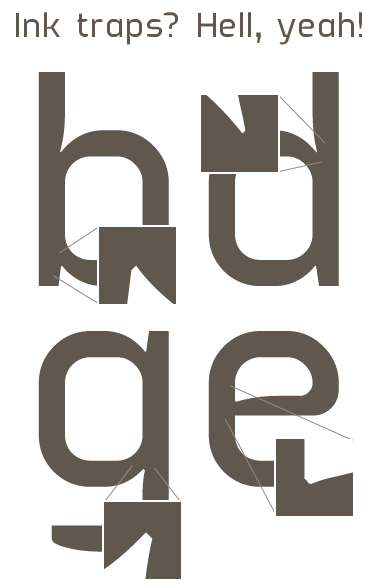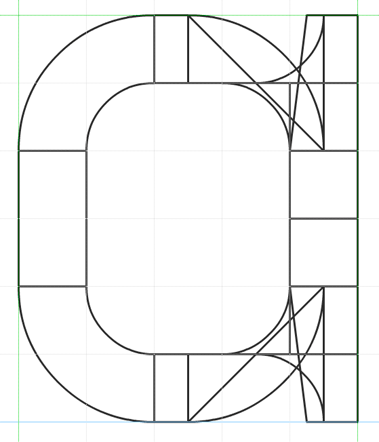
Usual Type
laynecom
Work in Progress The s: (c) ETHproductions
Sans Serif
The subtle details improve this already fantastic font. 10/10 + fav as always
Excellent work, as usual! Those inktraps are very clever. I especially love the ones in M and W.
About that 's': Here's an alternate for your consideration. It uses 1:3 curves to achieve a 5/6 spine thickness.
Amazing mastery of letters and fontstruct skills. 10/10
What a big work (as usual)!
Cool!